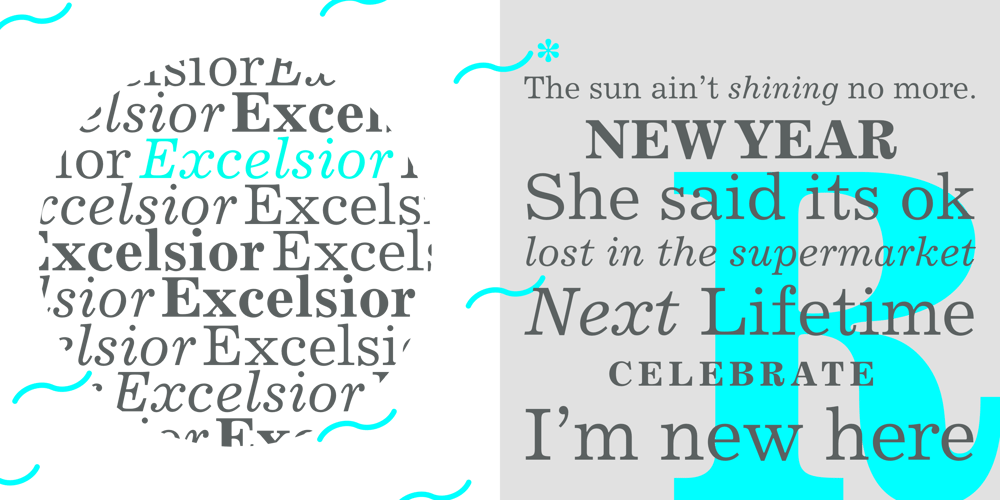
Excelsior LT
Excelsior LT font
Excelsior LT Font Family was designed by Chauncey H. Griffith and published by Linotype. Excelsior LT contains 1 styles and family package options. Before designing this font, C.H. Griffith consulted the results of a survey of optometrists regarding optimal legibility. Excelsior was then presented by Mergenthaler Linotype in 1931 and remains one of the most legible and popular fonts worldwide.